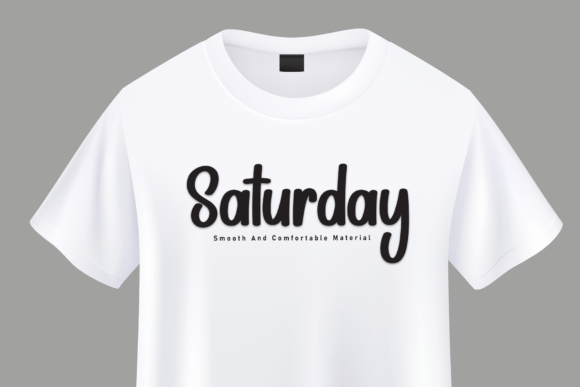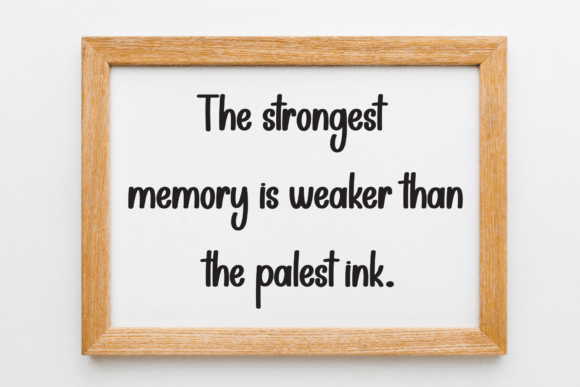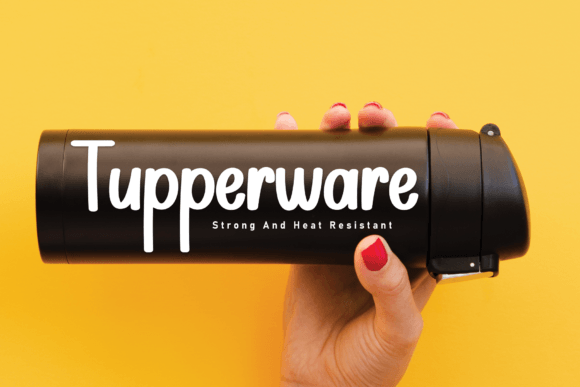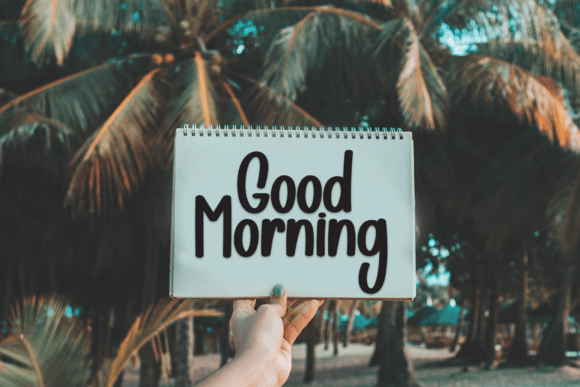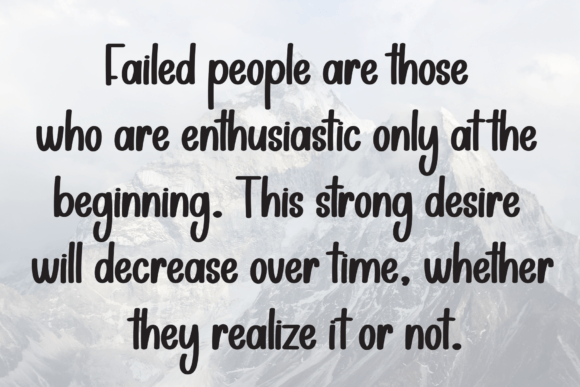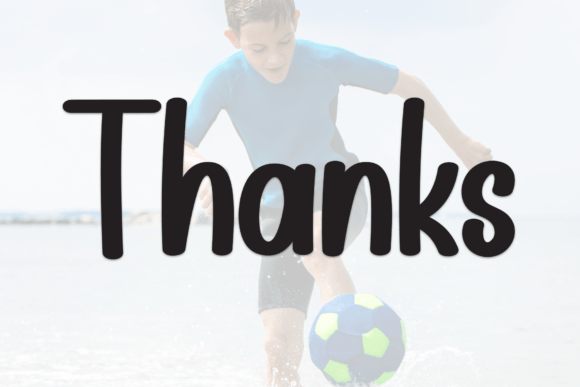
Summer Vibes in Every Letter: Introducing Beach Football Font
There’s something magical about a sunny day at the beach, the sound of the waves, and the feeling of sand between your toes. It’s a moment that sparks creativity, and for designers, it’s the perfect time to think outside the box and experiment with new ideas. And that’s exactly where Beach Football Font comes in – a sweet and friendly handwritten font that’s sure to bring a smile to your face and a touch of personality to your designs.
Beach Football Font is more than just a font – it’s a way to add a unique touch to your designs, from social media posts to branding materials, and everything in between. With its natural and playful style, the possibilities are endless, and the only limit is your imagination. Whether you’re a seasoned designer or just starting out, Beach Football Font is a valuable addition to your toolkit, guaranteed to help you stand out from the crowd and make a lasting impression.
Beach Football Font Key Features
- Font Style: A unique, playful, and modern sans-serif font, designed specifically for beach and sports-related themes.
- Unique Characteristics: The font features a distinctive wave-like design element, adding a dynamic and energetic feel to text.
Beach Football Font Review
Overall, I’d say the Beach Football Font is a solid addition to any design project that needs a fun, casual vibe. ✨ Here are a few things it does well:
- Casual, laid-back feel that’s perfect for summer-themed designs
- Easy to read, even at small font sizes
- Works well for headings and titles, adds a nice pop of color
- Great for designing sports-related content, like beach volleyball or water polo
- Not ideal for formal or professional designs
- Some characters, like the ‘g’ and ‘p’, can be a bit wonky
- Not a lot of customization options, so you’re stuck with the default style
Overall, I’d give the Beach Football Font 3.5 out of 5 stars. It’s a fun, easy-to-use font that’s perfect for casual designs, but it’s not the best choice for more formal projects. Still, it’s a great addition to any designer’s toolkit, especially for summer-themed designs.
Use the Beach Football Font to add a fun and energetic touch to your designs. Pair it with bold colors and playful graphics to create a lively atmosphere.
The Beach Football Font is perfect for:
- Summer-themed designs
- Sports-related designs
- Beach or outdoor-themed designs
- Party or event invitations
Alternatives to Beach Football Font
Great Vibes is a modern, elegant script font perfect for creating a fun and lively atmosphere. It’s ideal for use in logos, branding, and advertising for sports and leisure-related businesses. Great Vibes Font is similar to Beach Football Font in its playful and carefree vibe, but it’s more refined and sophisticated. Great Vibes is a great choice when you need a font that exudes positivity and energy.
Playball Font
Playball is a bold, dynamic font designed for sports and entertainment brands. It’s perfect for creating eye-catching headlines and promotional materials. Playball Font is more energetic and edgy than Beach Football Font, making it suitable for use in high-energy environments like stadiums and sports bars. Playball is a great choice when you need a font that’s attention-grabbing and energetic.
Stimpak Font
Stimpak is a distressed, vintage-inspired font that adds a touch of nostalgia and grit to your designs. It’s perfect for use in logos, packaging, and advertising for retro-themed sports brands. Stimpak Font is more rugged and weathered than Beach Football Font, making it suitable for use in environments where a vintage vibe is desired. Stimpak is a great choice when you need a font that’s unique and attention-grabbing.